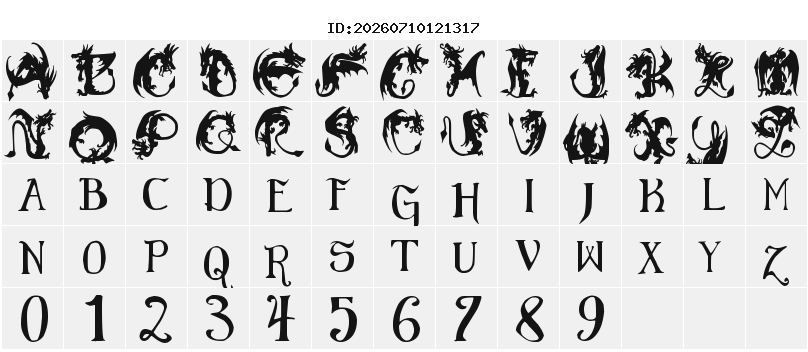
• Designer: Bill Roach / W.K. Roach
• Description: "EG Dragon Caps" is a serif typeface that is an attempt to hybridize a decorative titling face - with a full use text face. It is a font loosely based upon medieval and renaissance era lettering, and was also inspired by the map texts of fantasy author J.R.R. Tolkien. It is a biased mixture of both contemporary and antique typographical stylizations.